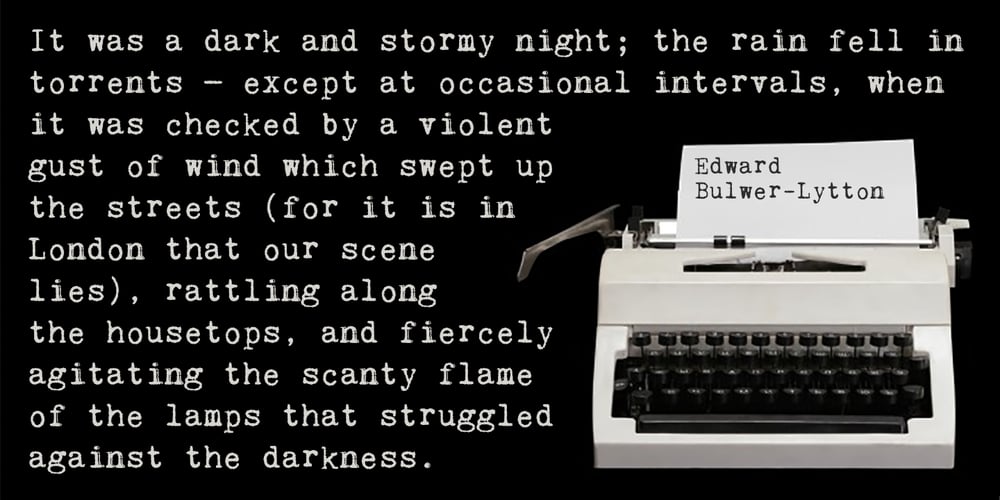
Kingthings Trypewriter Pro
Kingthings Trypewriter Pro font
Kingthings Trypewriter Pro Font Family was designed by Roger S. Nelsson, Kevin King and published by CheapProFonts. Kingthings Trypewriter Pro contains 1 styles and family package options. I have made this font properly monospaced (all characters are the same width) as that is how an old typewriter worked. In addition to correcting and expanding the character set, of course. Keving King says: “Kingthings Trypewriter is a deconstructed typewriter face. I have always loved decayed fonts, this is the first of mine – and yes, I know there are lots of these around – this one is MINE”. ALL fonts from CheapProFonts have very extensive language support: They contain some unusual diacritic letters (some of which are contained in the Latin Extended-B Unicode block) supporting: Cornish, Filipino (Tagalog), Guarani, Luxembourgian, Malagasy, Romanian, Ulithian and Welsh. They also contain all glyphs in the Latin Extended-A Unicode block (which among others cover the Central European and Baltic areas) supporting: Afrikaans, Belarusian (Lacinka), Bosnian, Catalan, Chichewa, Croatian, Czech, Dutch, Esperanto, Greenlandic, Hungarian, Kashubian, Kurdish (Kurmanji), Latvian, Lithuanian, Maltese, Maori, Polish, Saami (Inari), Saami (North), Serbian (latin), Slovak(ian), Slovene, Sorbian (Lower), Sorbian (Upper), Turkish and Turkmen. And they of course contain all the usual “western” glyphs supporting: Albanian, Basque, Breton, Chamorro, Danish, Estonian, Faroese, Finnish, French, Frisian, Galican, German, Icelandic, Indonesian, Irish (Gaelic), Italian, Northern Sotho, Norwegian, Occitan, Portuguese, Rhaeto-Romance, Sami (Lule), Sami (South), Scots (Gaelic), Spanish, Swedish, Tswana, Walloon and Yapese.